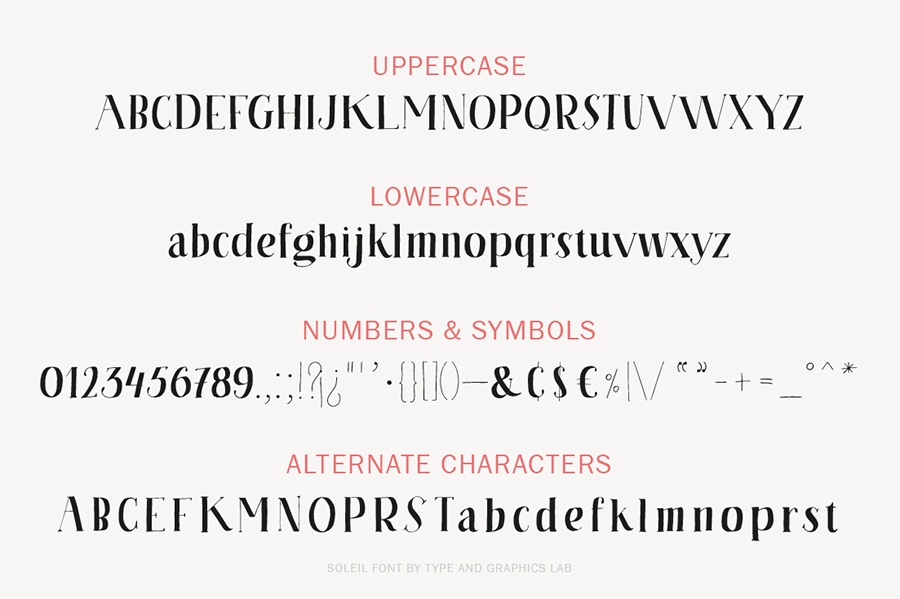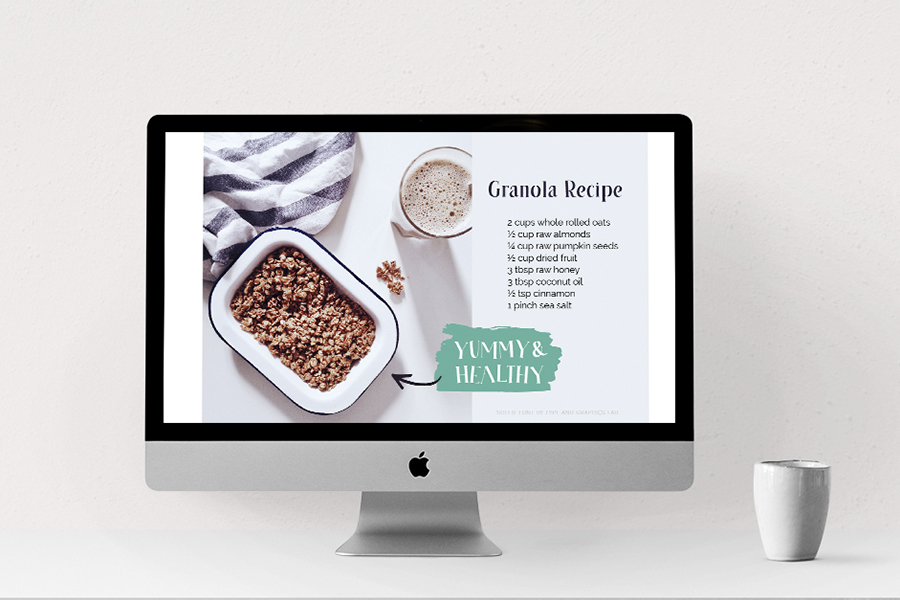
Soleil | A Serif Font
The font name comes from the french word “soleil,” meaning “sun.” All letters were drawn by hand, carefully digitized to keep that slightly rough look, and then turned into a playful serif font. Soleil supports most European languages and comes with upper- and lowercase characters, punctuation, numerals, and symbols. This font is suitable for package design, branding, logotypes, print or digital ads, and many more.